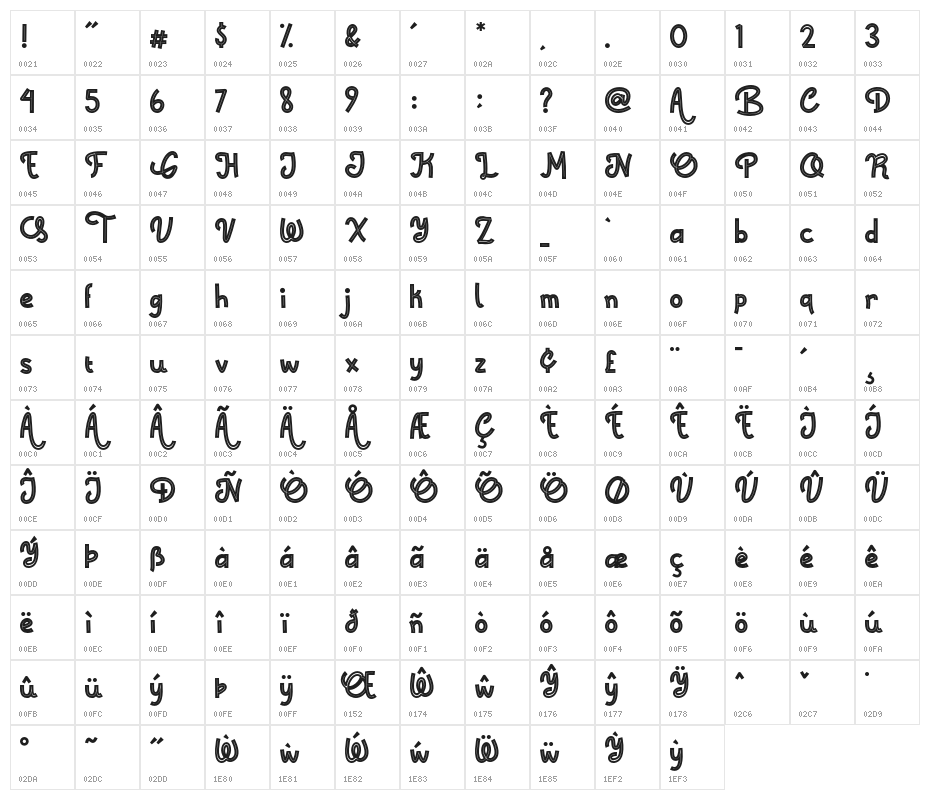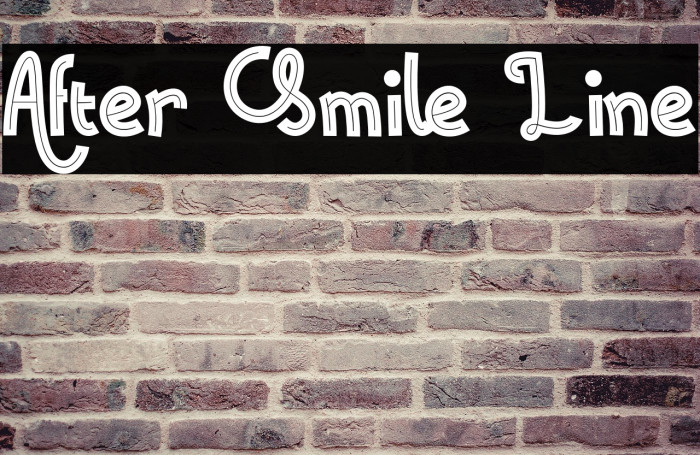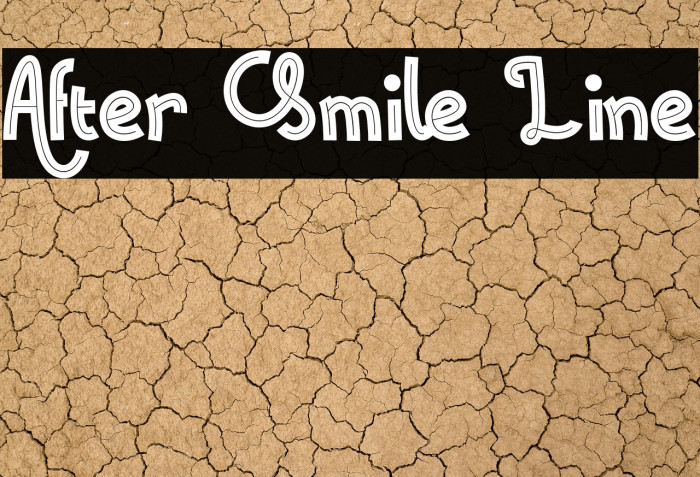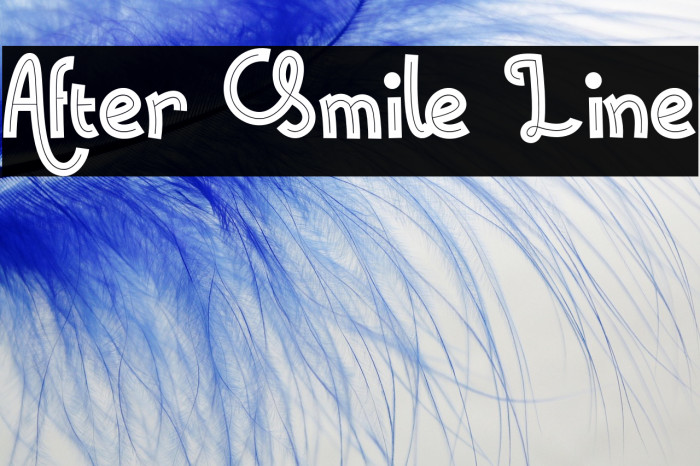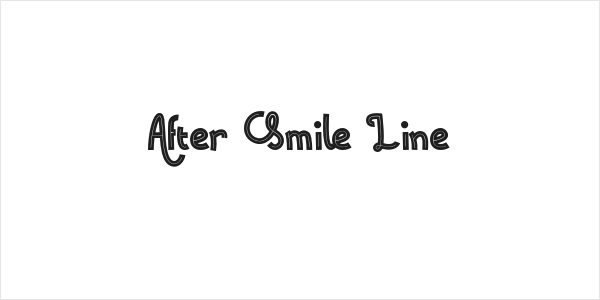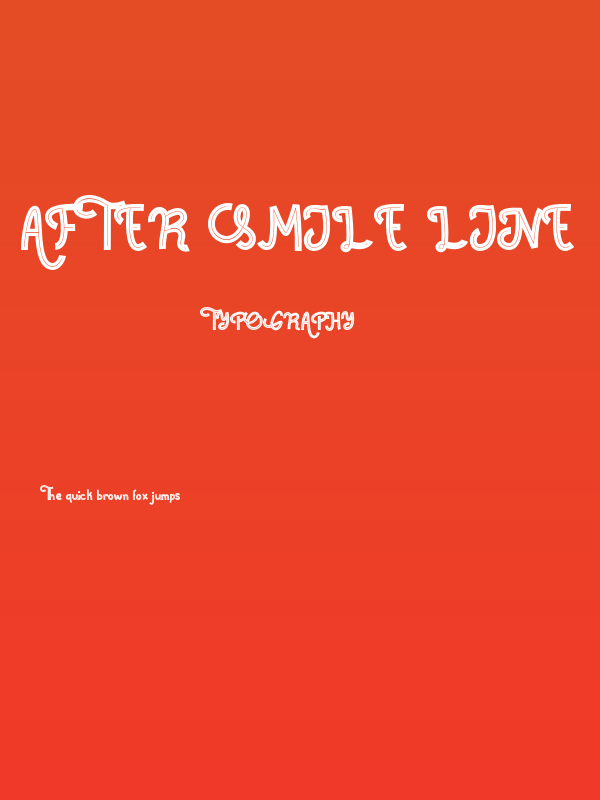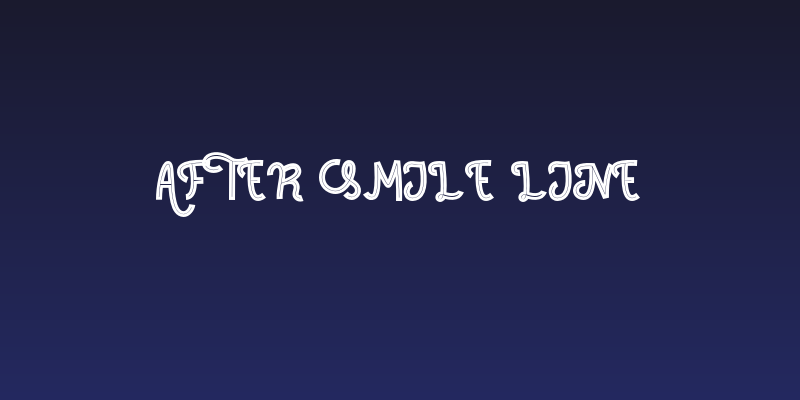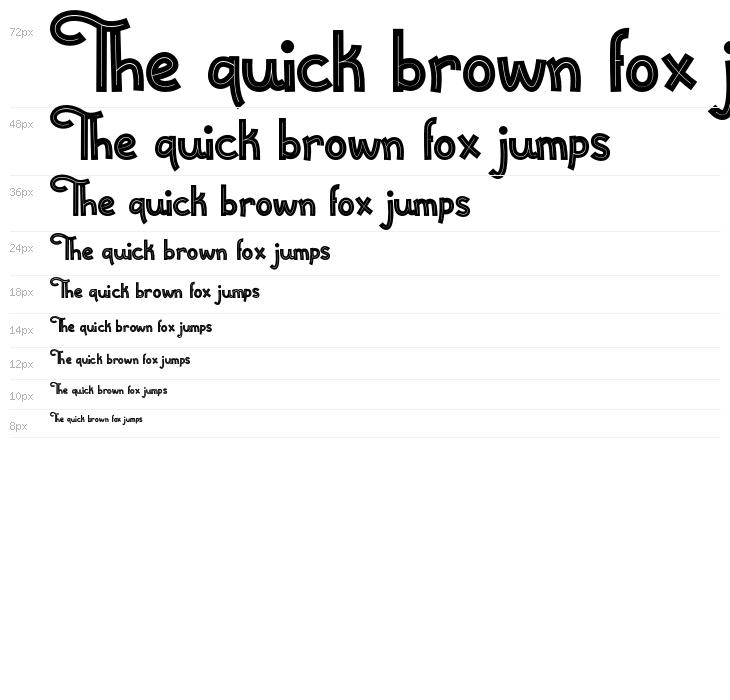
After Smile Line Font
After Smile Line Description
This font features a playful and whimsical design, characterized by its bold and rounded letterforms. The uppercase letters exhibit a unique, almost cartoonish style with exaggerated curves and strokes, giving them a lively appearance. The lowercase letters maintain a consistent style, complementing the uppercase with their rounded edges and playful flair. Numbers are equally bold and rounded, ensuring readability while maintaining the font's overall fun aesthetic. Special characters are designed with the same playful approach, adding to the font's cohesive look. This font is perfect for projects that require a touch of humor and creativity.
| Proposed Projects | Ideal for children's books, comic strips, playful branding, and creative posters. |